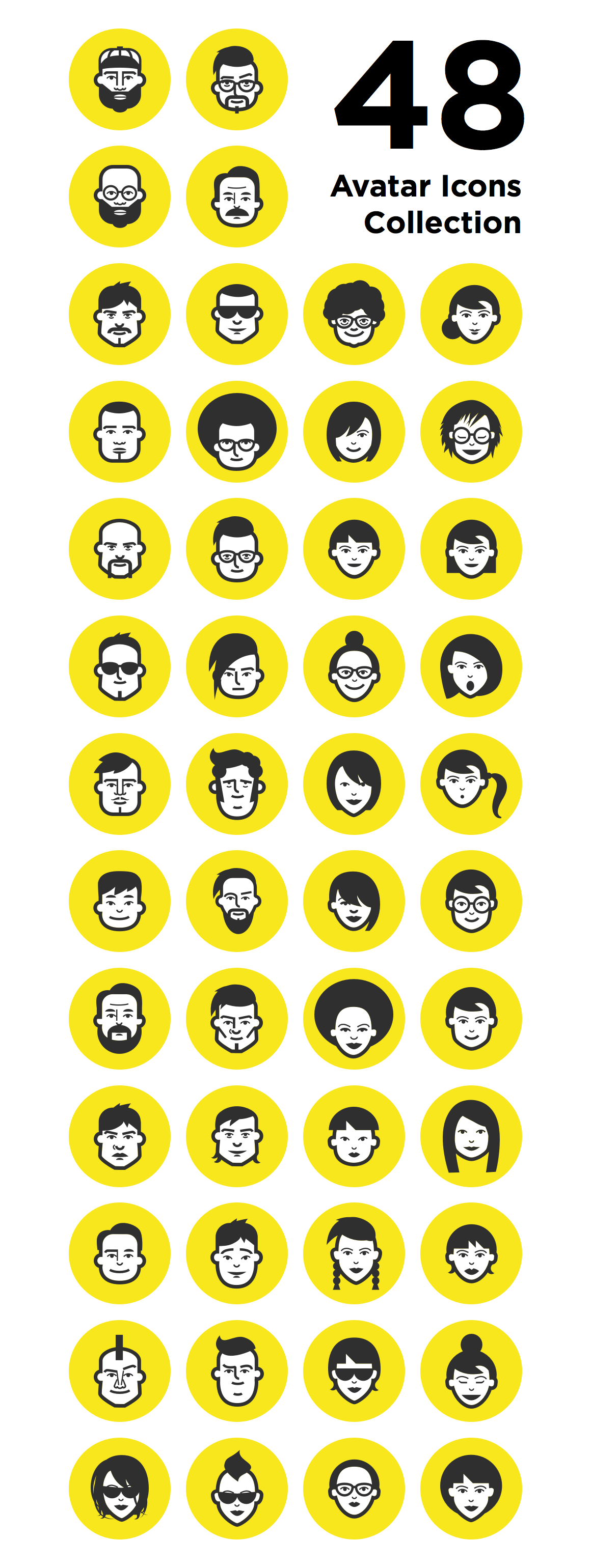
48 Avatar Icons + Font
Vector collection of 48 avatar icons (24 males and 24 females). Great for your website, mobile application or print. Ideal for fancy face placeholders. This pack also includes exclusively CUSTOM FONT made from all 48 avatar icons.
All icons are filled-in vectors, infinitely scalable. You can change separately color for both face fill and head stroke. Smart global color settings is available.